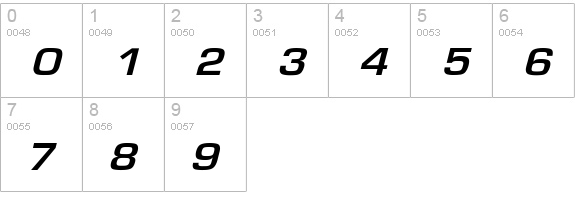
EurostileExtObl is a sleek and modern typeface that exudes a sense of sophistication and professionalism. Its distinctive oblique design adds a dynamic touch to any project, making it stand out from the crowd. The letterforms are bold and geometric, with sharp angles and clean lines that give a contemporary edge to any text. What sets EurostileExtObl apart is that it is available for free download at FontsMarket.com. This means that you can easily access this high-quality font without any cost, making it a valuable resource for designers, creatives, and anyone looking to elevate their work with a stylish and versatile typeface. Whether you're designing a website, creating marketing materials, or working on a branding project, EurostileExtObl offers a modern and eye-catching option that will make your text pop. Its versatility and bold aesthetic make it a great choice for a wide range of applications, from logos and headlines to posters and signage. With its free availability and striking design, EurostileExtObl is a must-have font for anyone looking to make a statement with their typography. Download it today at FontsMarket.com and take your designs to the next level with this sleek and stylish typeface.